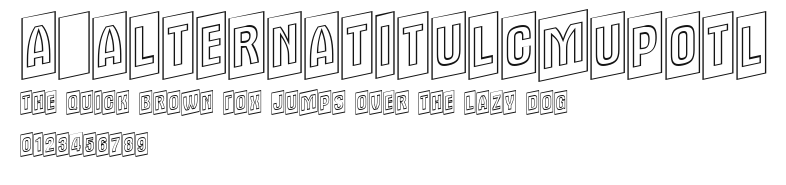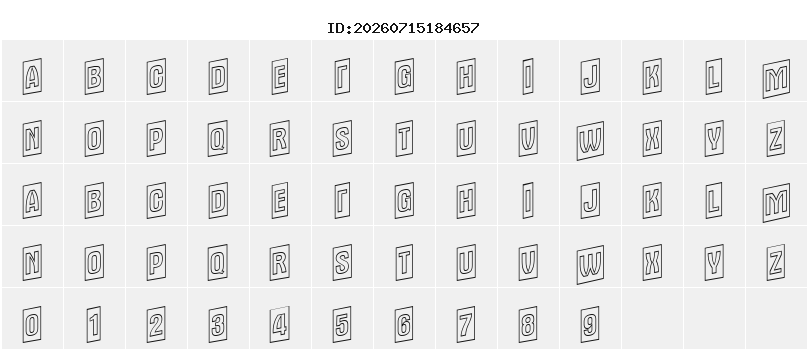
• Font Name: a_AlternaTitulCmUpOtl
• Full Font Name: a_AlternaTitulCmUpOtl
About a_AlternaTitulCmUpOtl.ttf
a_AlternaTitulCmUpOtl.ttf is a modern, elegant sans-serif font designed for ultimate readability and visual harmony. Perfect for branding, headlines, web design, and print materials.